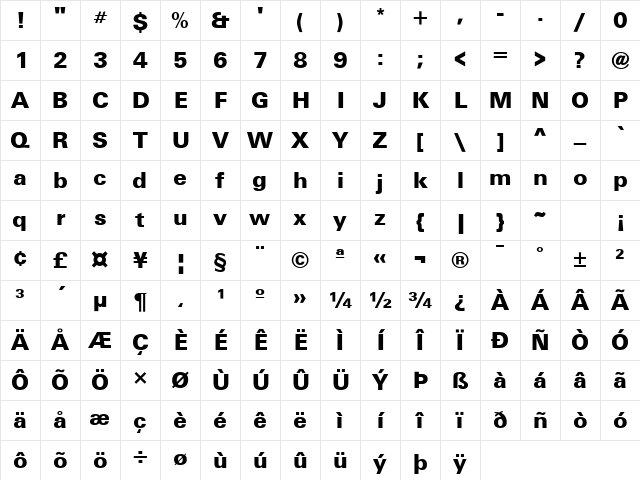
Unique BOLD
Style: BOLD
Design Context for Unique
Unique is a composed and adaptable typeface that performs quietly and consistently across a wide range of design contexts. Its bold stroke weight gives it real presence on the page.